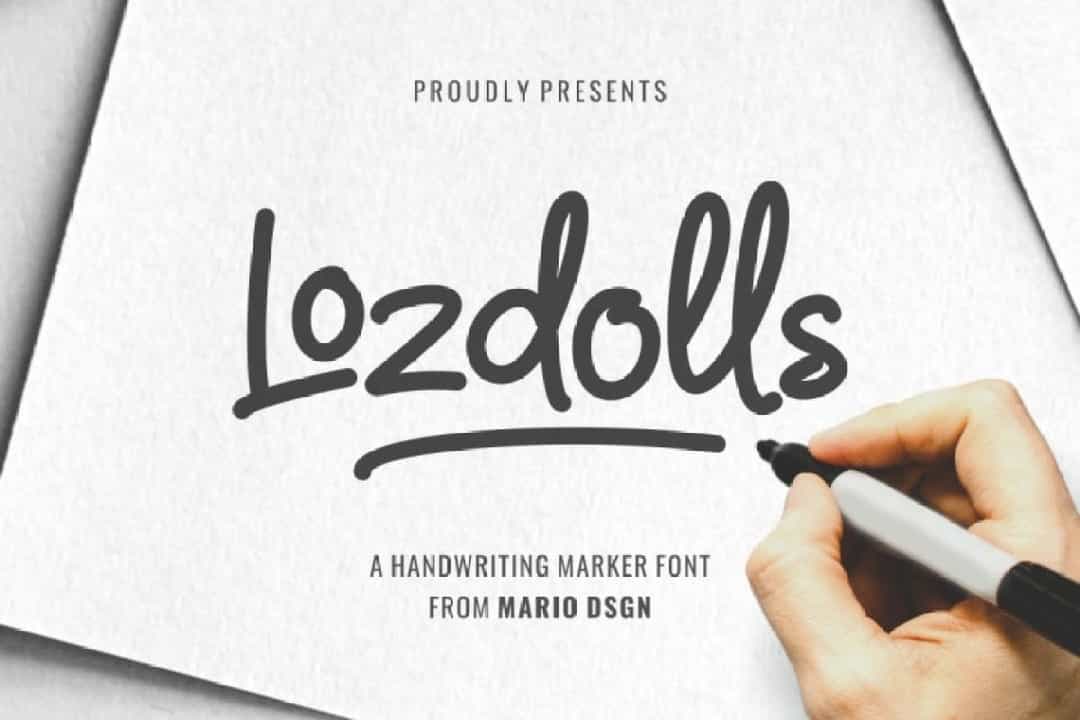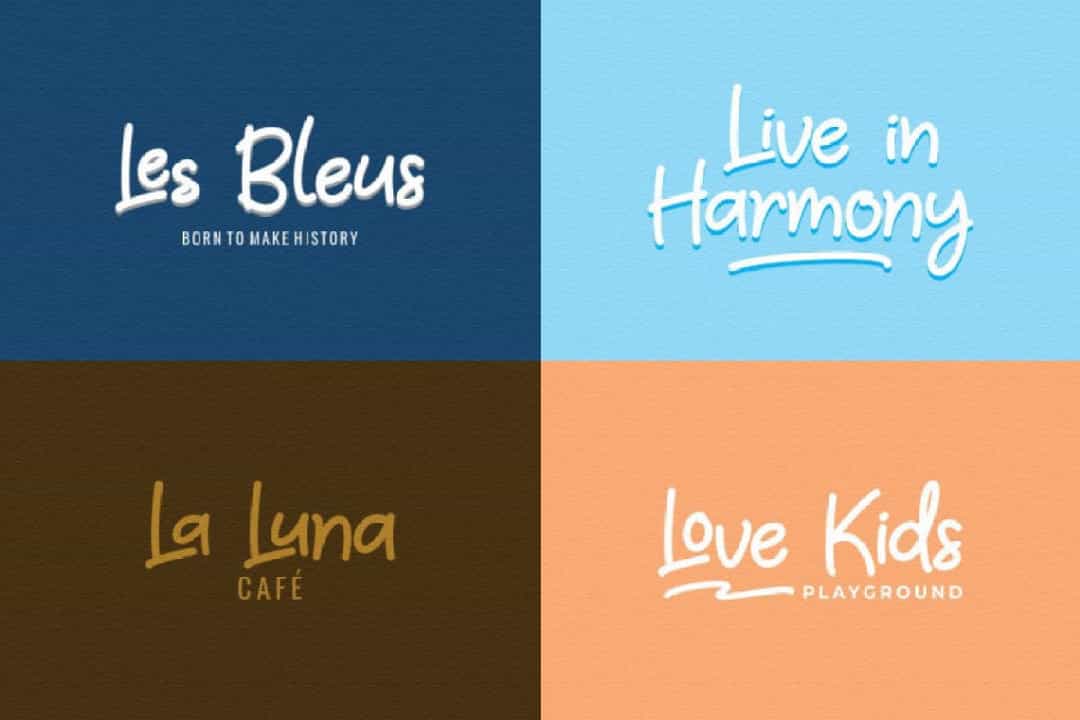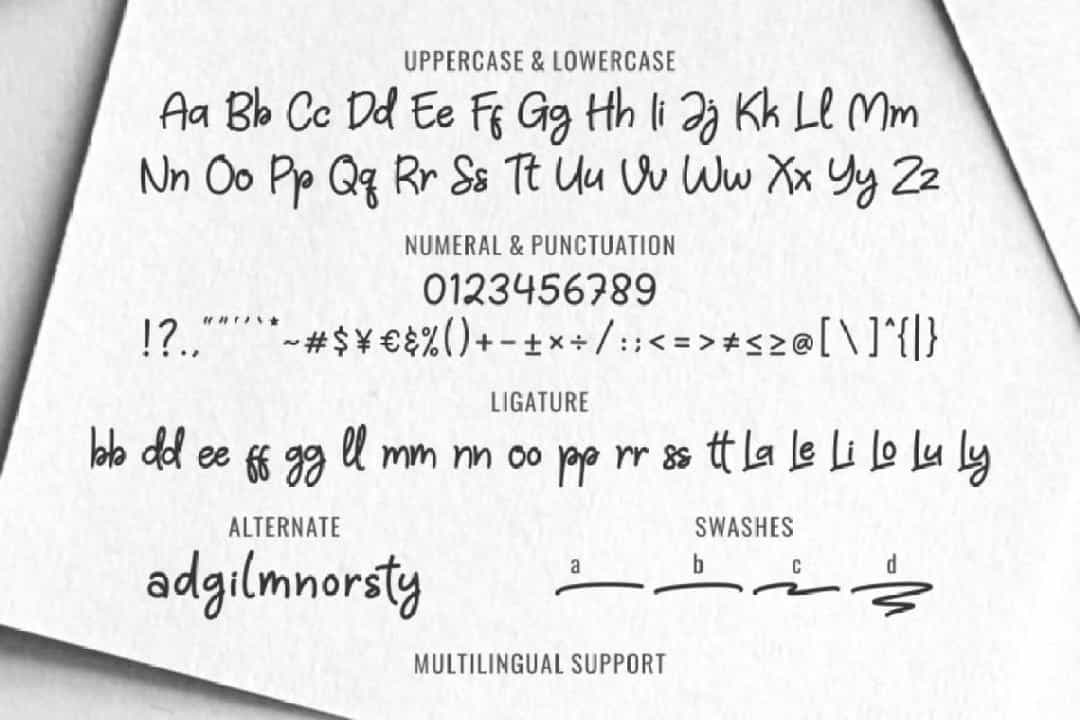
Lozdolls is a handwritten that features large letters that seem to have been written with markers. A font that can be used in virtually any project whether it is branding and logo designing, invitation, flyers, social media design labeling, packaging or even more.